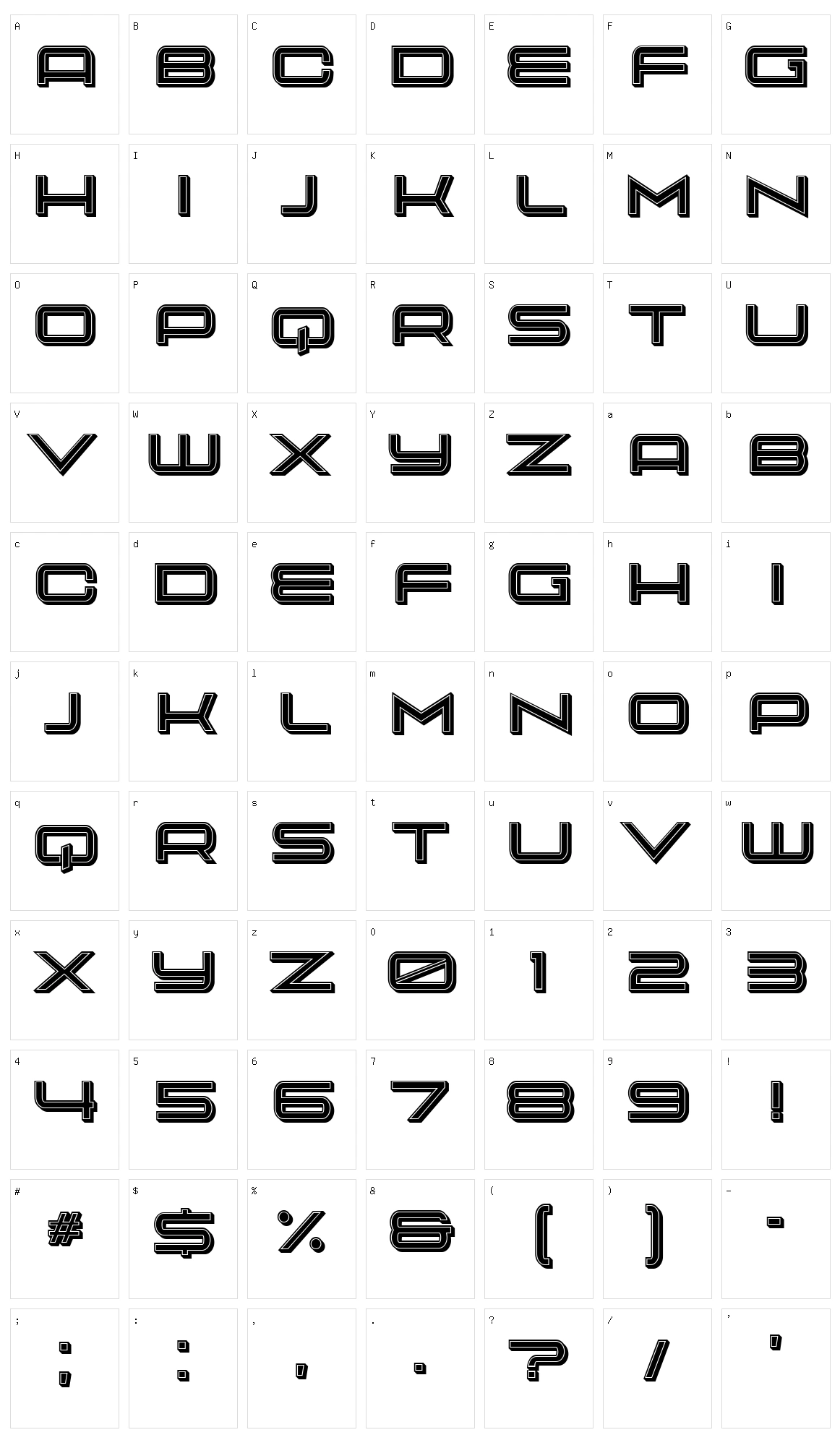
The free font Hazenpad Kiezen is carefully designed by Vladimir Nikolic, showcasing a thoughtful balance of creativity and usability and falls under the Sans serif font style. When you download the ZIP file, it contains only 29.19 KB of font files, making it lightweight and quick to download. Please review the license details below to understand permitted usage and distribution rights. If license information is not available, we recommend using this font for personal projects only or contacting the author directly for commercial usage permissions.